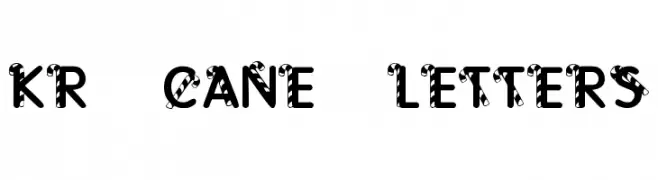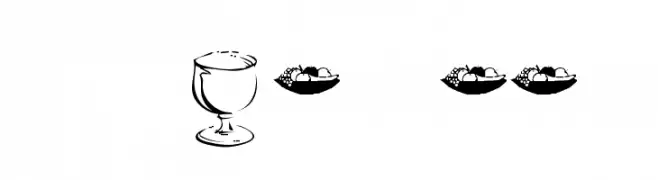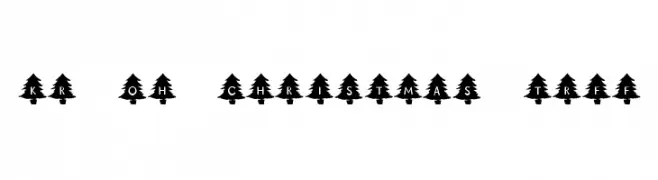
A decorative font with sleigh motifs, perfect for festive designs.
A festive font with letters embedded in Christmas tree silhouettes.
A decorative font with snowflake motifs, perfect for festive designs.
A decorative font with bold, uppercase letters inside candle shapes.
A decorative font with festive Christmas-themed illustrations replacing characters.
A decorative font with a candy cane striped pattern, perfect for festive designs.
A bold, festive font with snowflake-adorned uppercase letters, perfect for winter themes.
A decorative font featuring Kwanzaa-themed icons for each character.
A playful, snowman-themed font perfect for festive projects.